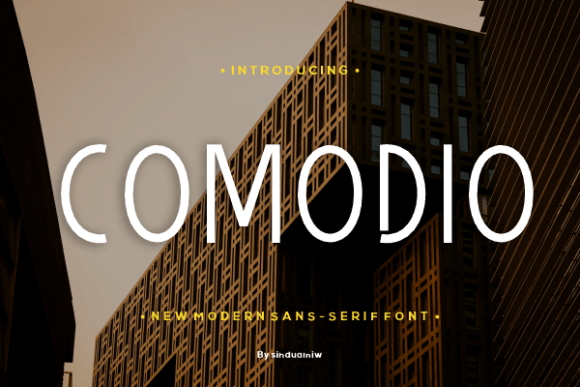
Comodoi: A Font That Elevates Every Editorial Moment
There’s a quiet magic in choosing the right font for a project. It’s not just about aesthetics—it’s about creating a visual language that speaks to your audience. Recently, I was working on a redesign for a lifestyle blog that needed more personality and sophistication. After trying several options, I stumbled upon Comodoi, and it felt like the perfect fit.
A Font with Character and Class
Comodoi is a sans serif typeface that blends elegance with modernity. Its calligraphic influences give it a handcrafted feel, yet its clean lines keep it grounded in contemporary design. This balance makes it versatile enough to work across various editorial formats while maintaining a cohesive brand identity.
I first used Comodoi as the headline font for the blog’s new header. The subtle curves and varied stroke widths added a touch of sophistication without overwhelming the reader. It felt like a conversation between the designer and the viewer—a gentle invitation to engage with the content.
From Blog Headers to Book Covers
As I continued testing Comodoi, I found it worked well in multiple contexts. For instance, when designing a recipe ebook, I used it for the title page and chapter openers. Its readability at larger sizes made it ideal for pull quotes and decorative accents. The font’s rhythm and flow complemented the content beautifully, guiding the reader through each section with ease.
In a recent digital magazine layout, I paired Comodoi with a clean serif body font. The contrast created a visual hierarchy that enhanced the reading experience. The sans serif nature of Comodoi allowed it to stand out in headlines and subheadings, while the serif font provided a comfortable reading experience for longer passages.
Readability Meets Aesthetic Appeal
One of the most appealing aspects of Comodoi is its readability. Whether it’s on a mobile screen or in a printed guide, the font maintains clarity and legibility. I tested it in various formats—PDFs, web layouts, and print materials—and it consistently performed well. Its open counters and balanced spacing make it suitable for both short text and extended reading sessions.
For a printable planner I designed, I used Comodoi in the headings and section titles. The font’s elegant structure made it feel premium and professional, which aligned perfectly with the product’s purpose. It also worked well in different weights, allowing me to create subtle variations in emphasis without losing the font’s integrity.
Font Pairing and Editorial Strategy
When selecting fonts for editorial design, it’s important to consider how they work together. Comodoi pairs beautifully with other sans serifs or clean serifs, depending on the desired mood. For example, pairing it with a modern serif like Garamond can create a refined look that feels both timeless and fresh.
In a coaching workbook I recently designed, I used Comodoi for the cover and key sections. To support the body text, I chose a simple sans serif that ensured easy reading. This approach helped maintain a consistent visual tone throughout the document while making the content accessible to all readers.
The Final Touch in Editorial Design
Using Comodoi has been a revelation in my workflow. It’s not just a font—it’s a design tool that enhances the storytelling process. Whether you’re crafting a newsletter header, designing an ebook cover, or building a printable guide, Comodoi brings a sense of refinement and intentionality to every project.
Its versatility, readability, and aesthetic appeal make it a standout choice for anyone involved in editorial design. From blog headers to magazine covers, Comodoi adds a touch of class that resonates with both creators and readers alike.